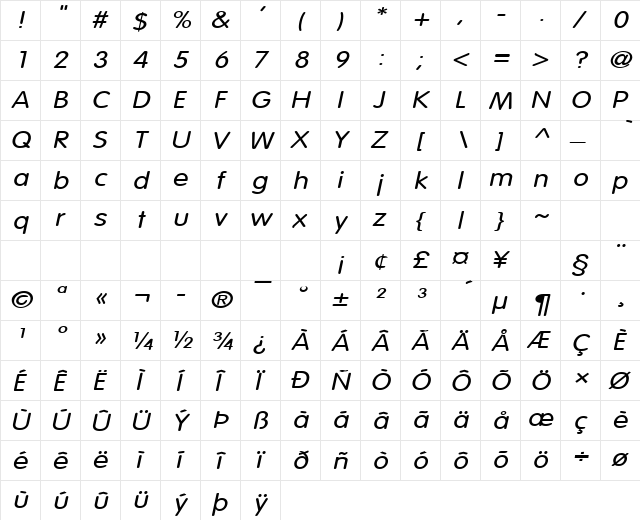
Vogel-Extended Italic Font Preview
Vogel-Extended Italic
Vogel-Extended Italic Font Details
Design Context for Vogel-Extended Typeface
Vogel-Extended takes a measured approach to typography — its balanced proportions and neutral character make it a reliable workhorse for both digital and print work. Its italic angle brings a sense of urgency and motion to the letterforms.